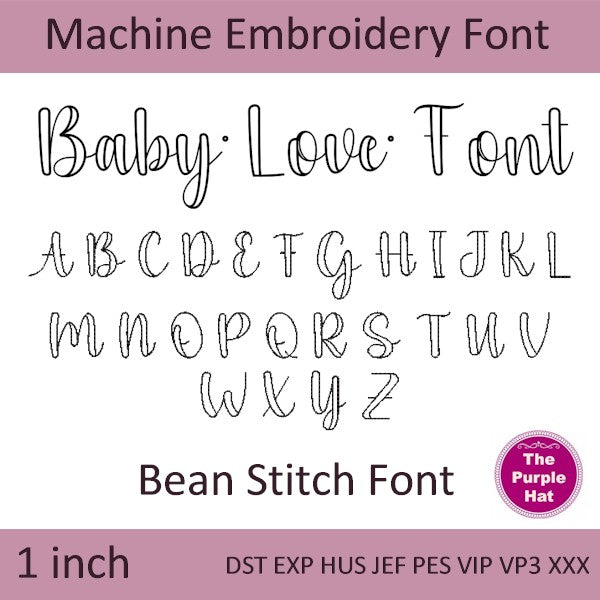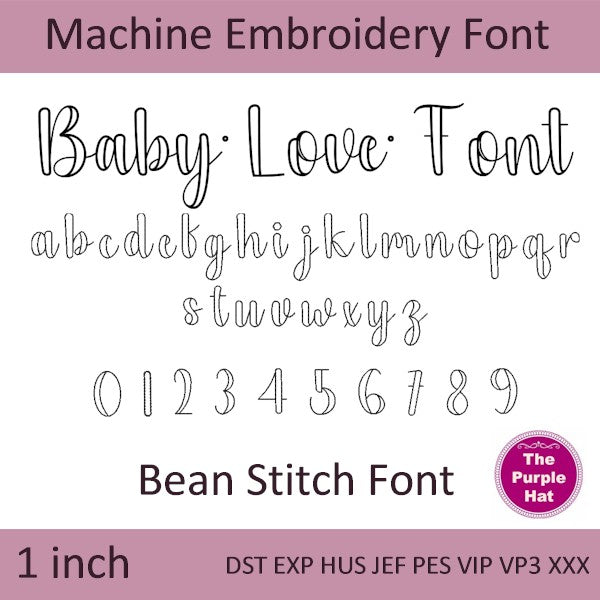
Baby Love bean triple stitch machine embroidery font 1 inch
The sweetest little font for your embroidery designs!
๐งต Name: Baby Love
๐ Uppercase Letters: A-Z
๐ก Lowercase Letters: a-z
๐ข Numbers: 0-9
๐ Size: 1 inch (approximate)
โจ Style: Triple run or bean stitch
๐ธ Perfect for baby items, love notes, and whimsical projects!